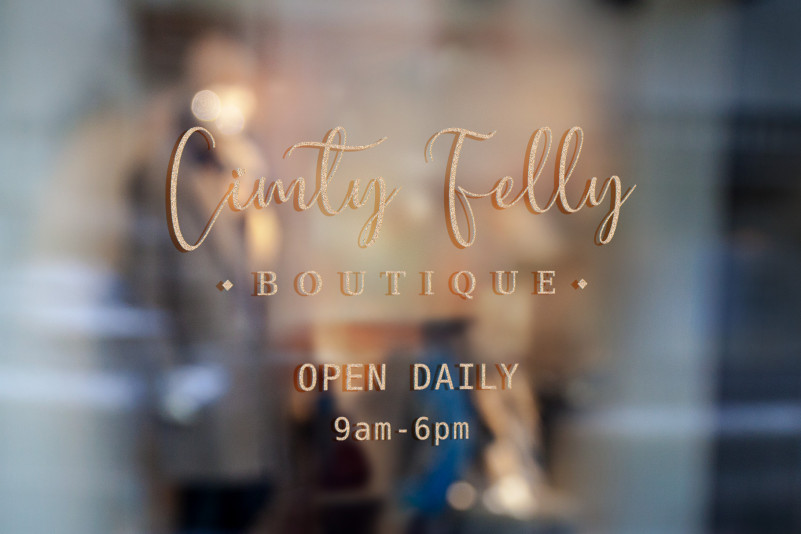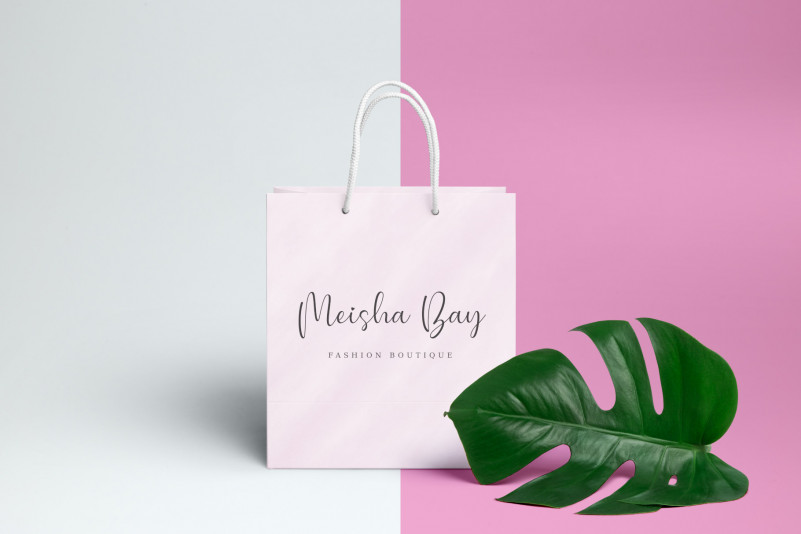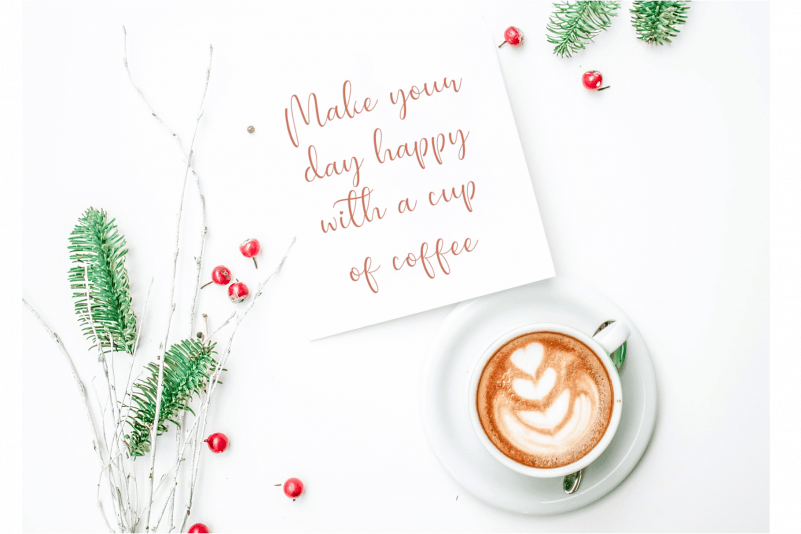
Chiesty Script Font
Chiesty Script Font is a sweet script font that You can implement chiesty font to your various design like Wedding Invitation, quotes, ID card, boutique logo, branding, hang tag, sosial media, print, poster and many more.